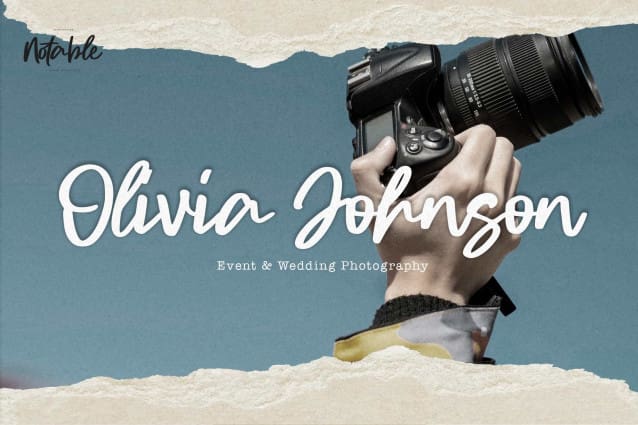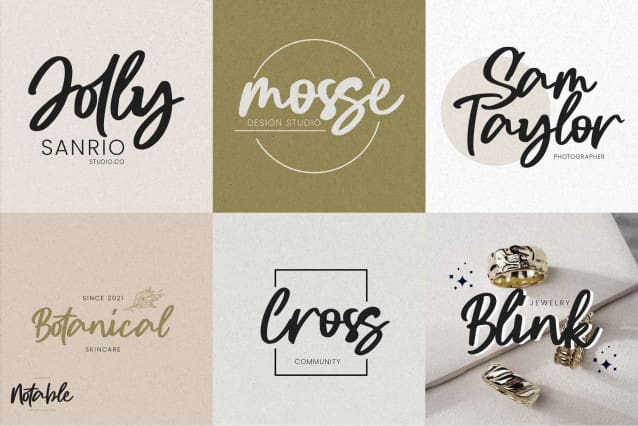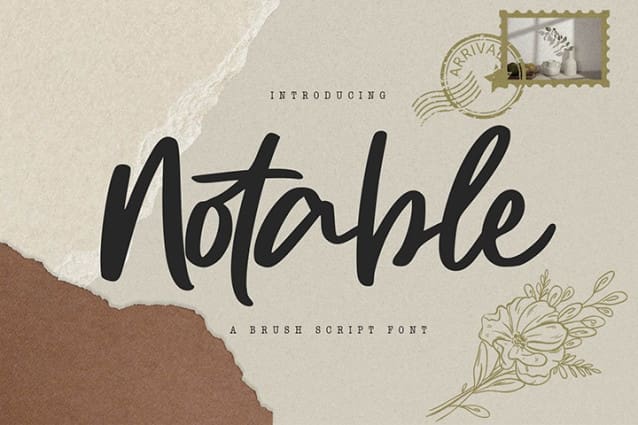
Notable Script Font
Notable Script Font – Handmade Script Font. This font blends natural elegance with a touch of drama, perfect for adding a classy and clear style to your projects.